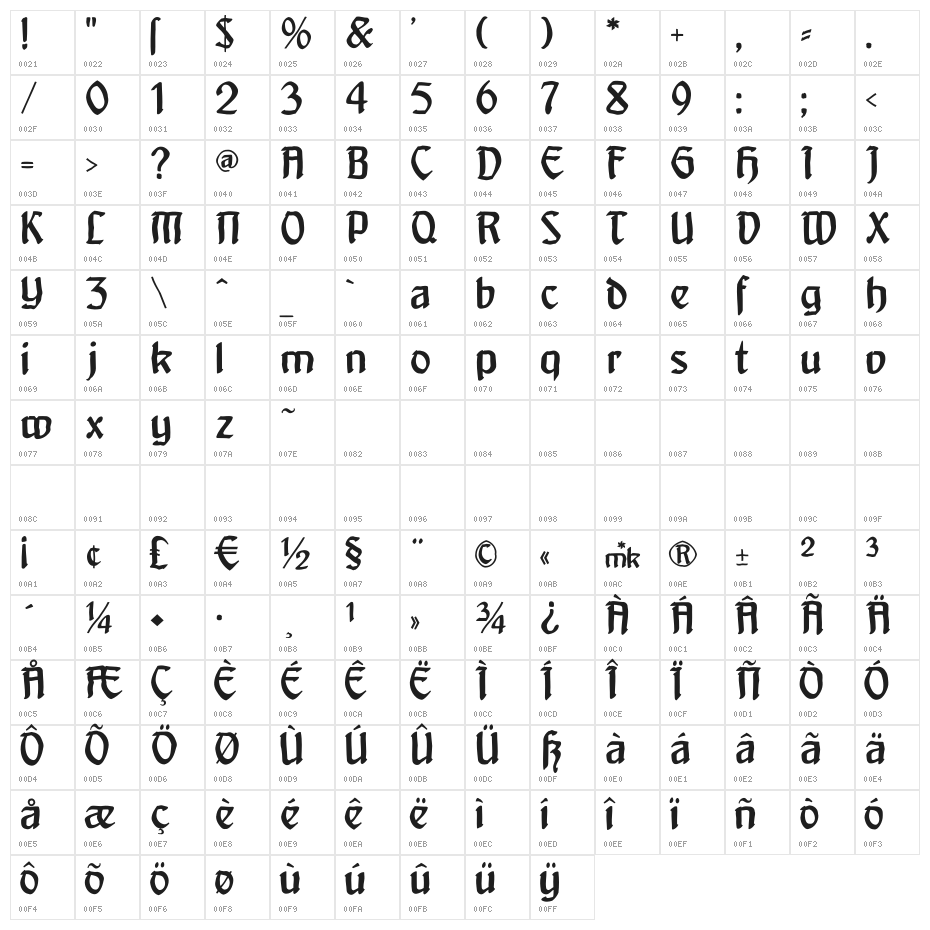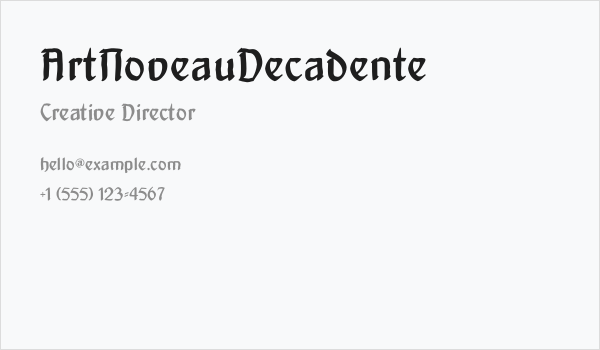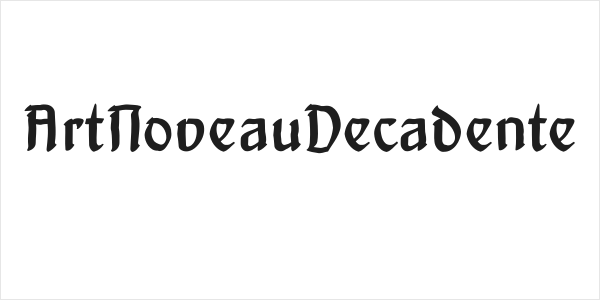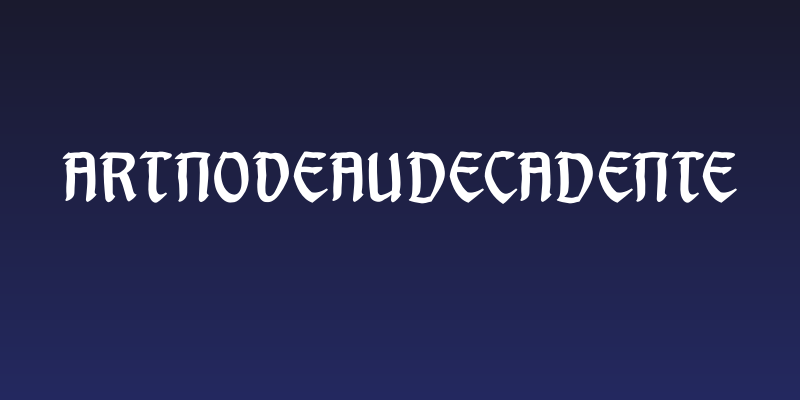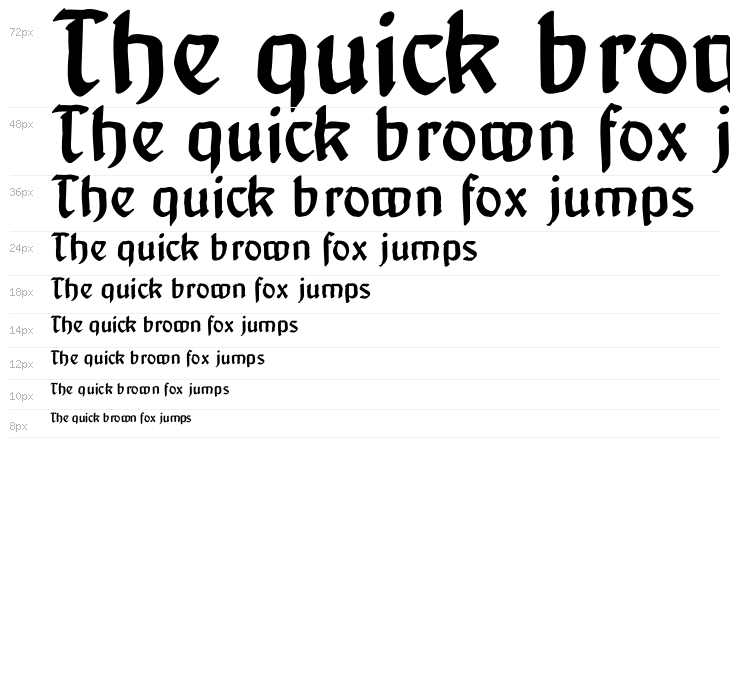
ArtNoveauDecadente Font
ArtNoveauDecadente Description
This font embodies a classic and ornate style reminiscent of historical scripts. The characters are bold and have a distinct blackletter influence, featuring sharp, angular lines and dramatic curves. The uppercase letters are particularly striking, with intricate details that give them a regal appearance. The lowercase letters maintain a consistent style, offering a harmonious blend of elegance and readability. Numbers and special characters are designed with the same attention to detail, ensuring a cohesive look across all elements. This font is perfect for projects that require a touch of sophistication and historical charm.
| Use Case | Headlines, Logos, Decorative text |
| Proposed Projects | Ideal for vintage-themed designs, book covers, posters, and branding that seeks a historical or gothic aesthetic. |